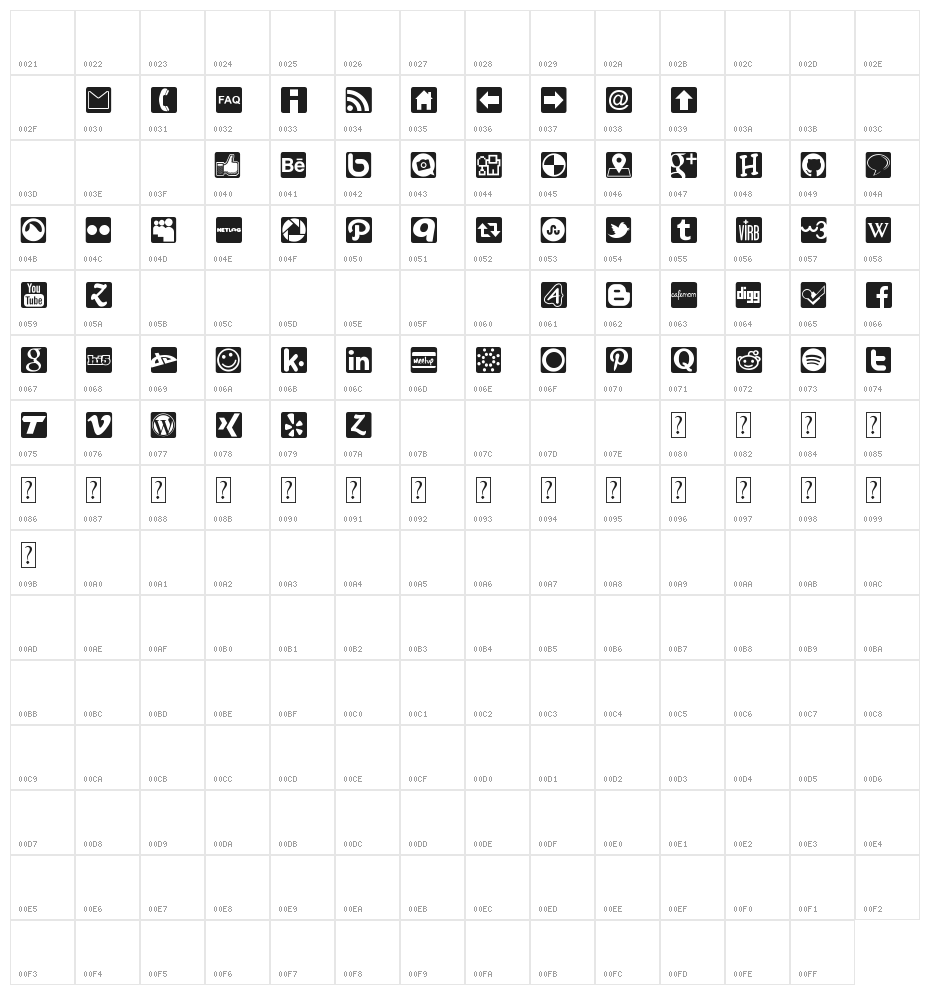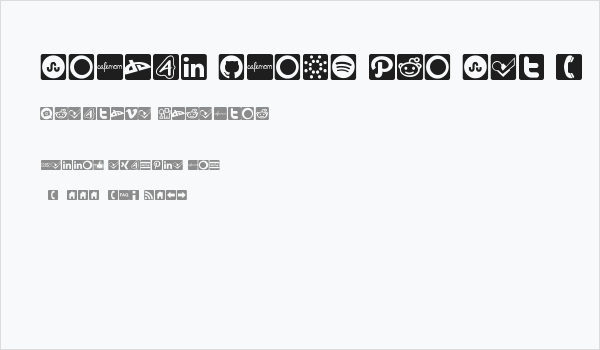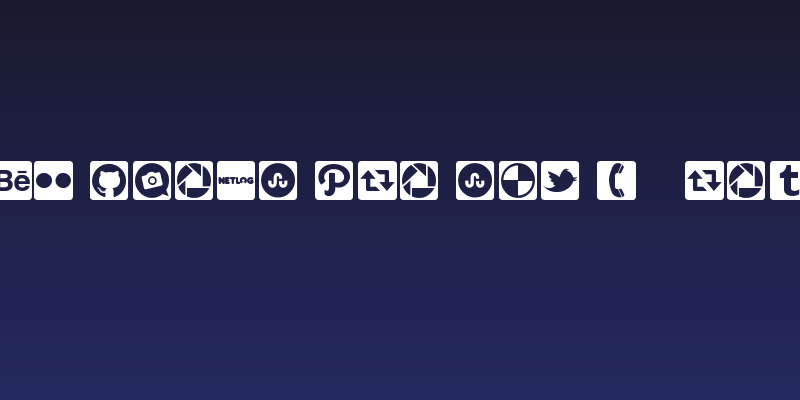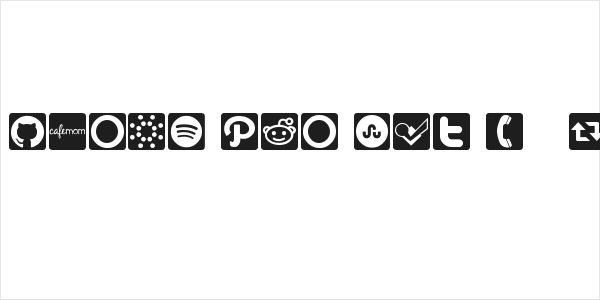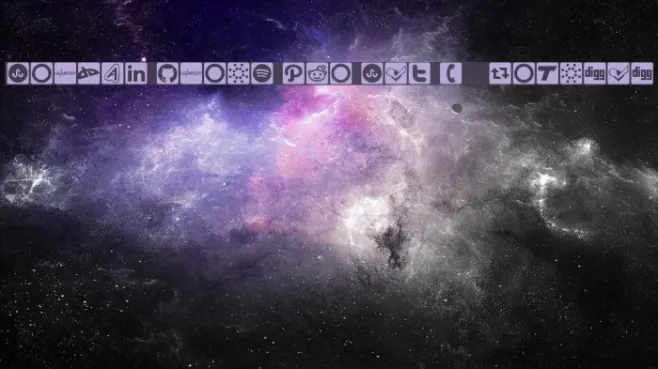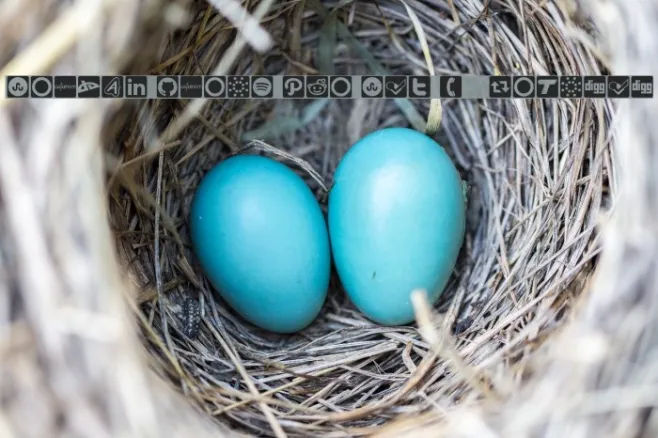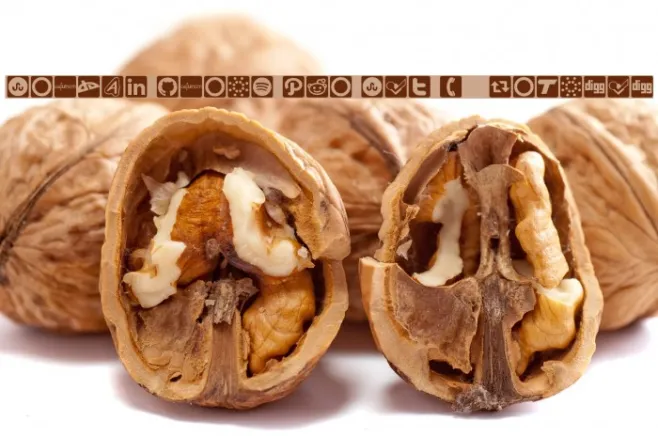
Social Icons Pro Set 1 - Rounded Font
Social Icons Pro Set 1 - Rounded Description
A set of rounded, high-contrast social media and web interface icons, each contained within a black square with white pictograms or logos, featuring consistent line thickness and a modern, minimalist style.
| Overall Style | Modern, Minimalist, Decorative |
| Use Case | Icons, UI elements, Buttons, Navigation, Social media links |
| Proposed Projects | Websites, mobile apps, UI/UX mockups, social media branding, presentations, digital marketing materials. |